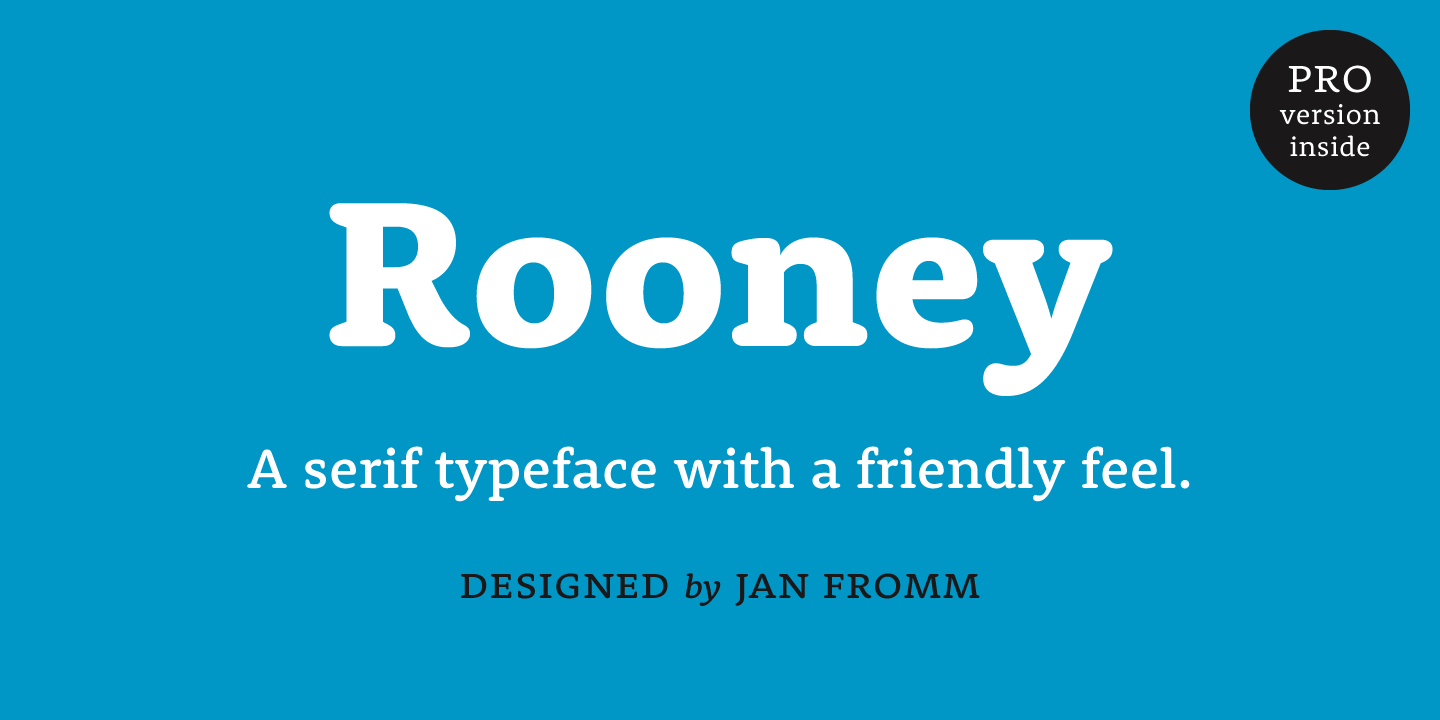
Rooney Font is perfect for literary magazine layouts, book publishing projects, editorial newspaper designs, academic journal publications, cultural arts magazines, intellectual blog platforms, scholarly book covers, thoughtful essay collections, literary festival materials, independent publishing houses, and any project that requires refined literary character with intellectual sophistication.
What makes Rooney Font exciting is its exceptional balance of readability and personality through carefully crafted letterforms that embody the essence of quality literature and thoughtful editorial design. This distinguished typeface features humanist characteristics with literary elegance that convey intellectual depth while maintaining excellent readability for extended reading experiences. The font's literary character adds instant editorial credibility and scholarly appeal to any design, making it perfect for publications requiring sophisticated typography and intellectual authenticity.
Rooney Font comes in multiple font families including Regular, Bold, Light, Italic, Medium, and Sans variations, providing designers with comprehensive options to create literary compositions and achieve the perfect editorial aesthetic for publishing-focused design projects.
Whether you're developing literary brand identity, creating scholarly publication materials, or designing intellectual campaign graphics, Rooney Font Free Download offers the perfect solution for projects demanding authentic literary character and editorial sophistication. This refined typeface excels in both print and digital applications where intellectual presence is essential, ensuring your designs communicate literary excellence and scholarly quality. The humanist character and editorial styling of Rooney Font make it an indispensable tool for designers who prioritize literary publishing, intellectual content, and scholarly communication excellence in their typographic selections.